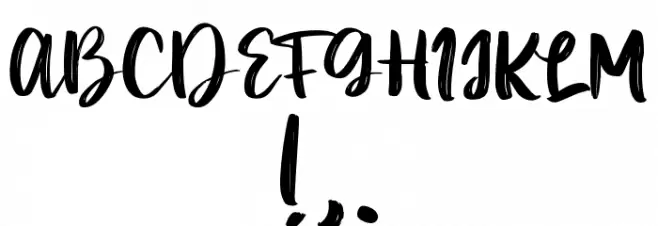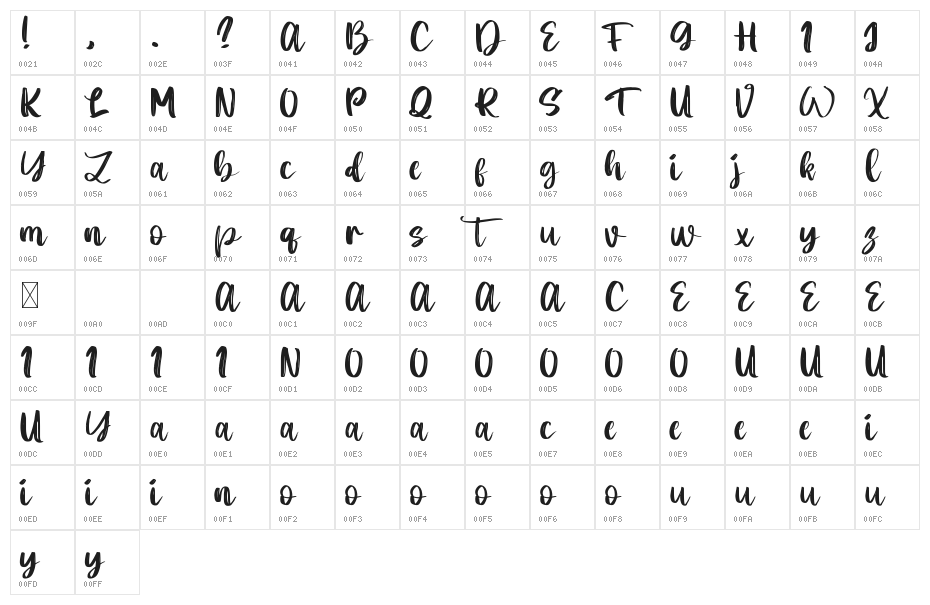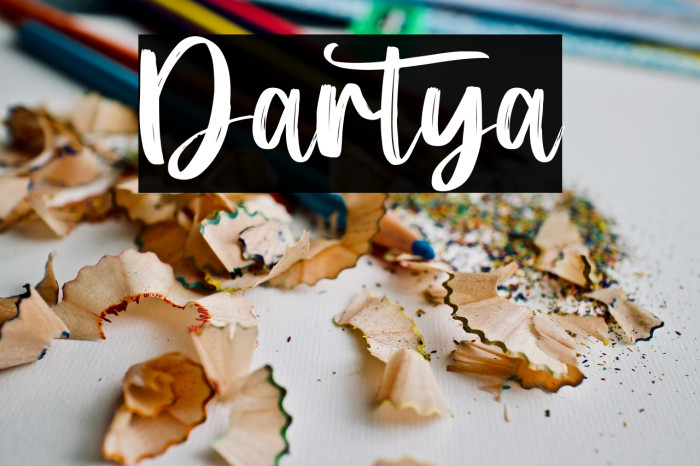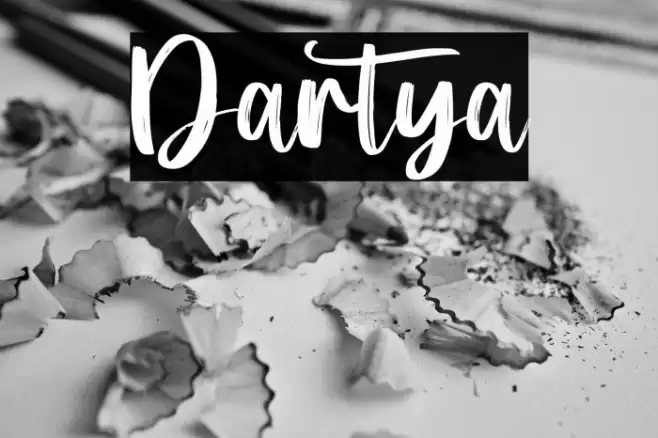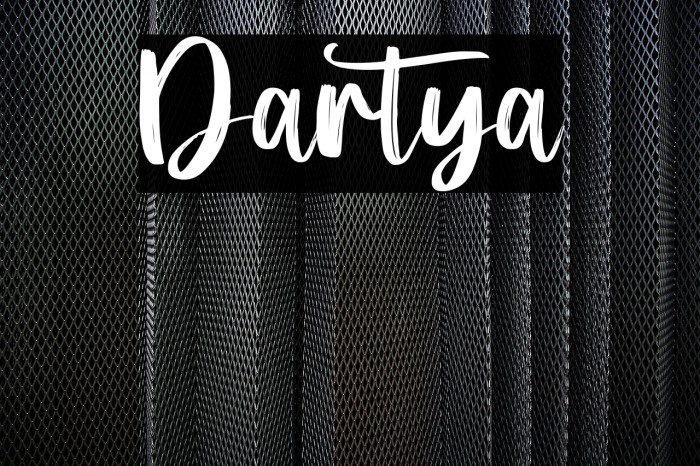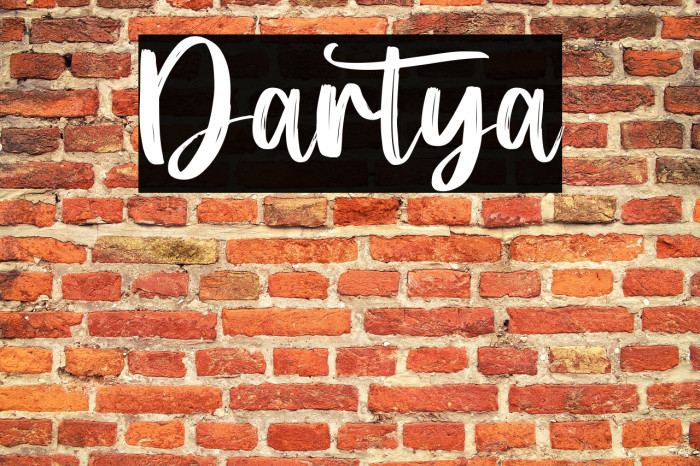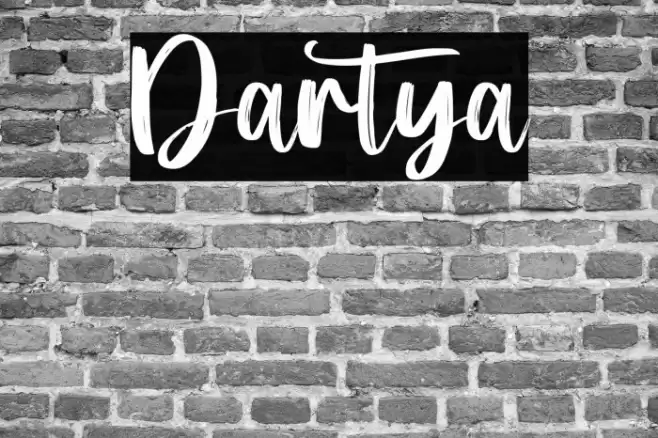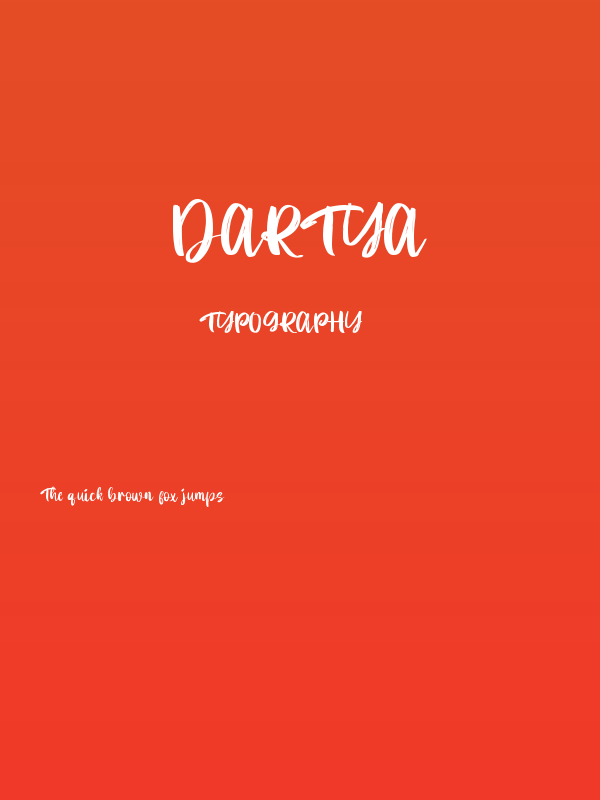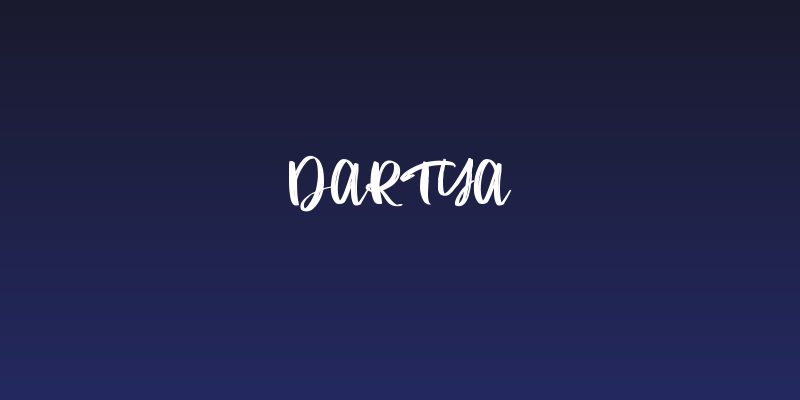
Dartya Font
Dartya Description
This font features a bold and expressive handwritten style with fluid, sweeping strokes that convey a sense of movement and energy. The characters are connected in a cursive manner, giving it a cohesive and flowing appearance. The uppercase letters are slightly larger and more pronounced, while the lowercase letters maintain a consistent rhythm and balance. The font includes a full set of uppercase and lowercase letters, numbers, and a selection of special characters. Its bold strokes and dynamic curves make it stand out, ideal for creating eye-catching designs.
| Proposed Projects | Ideal for branding projects, invitations, greeting cards, and social media graphics where a personal and dynamic touch is desired. |